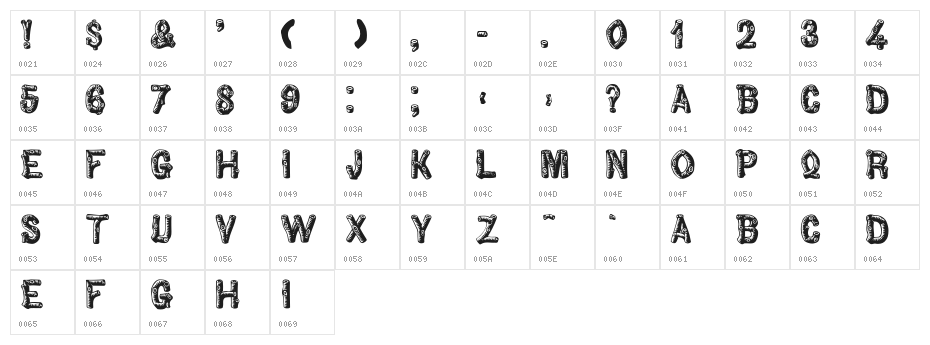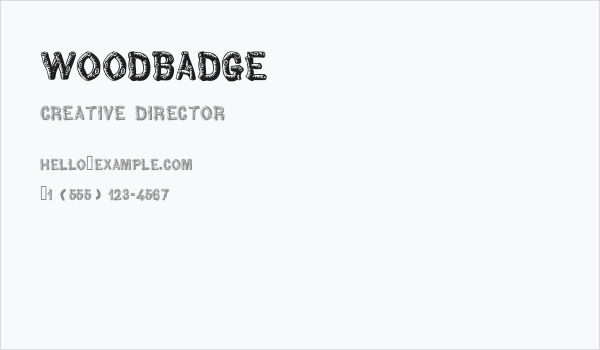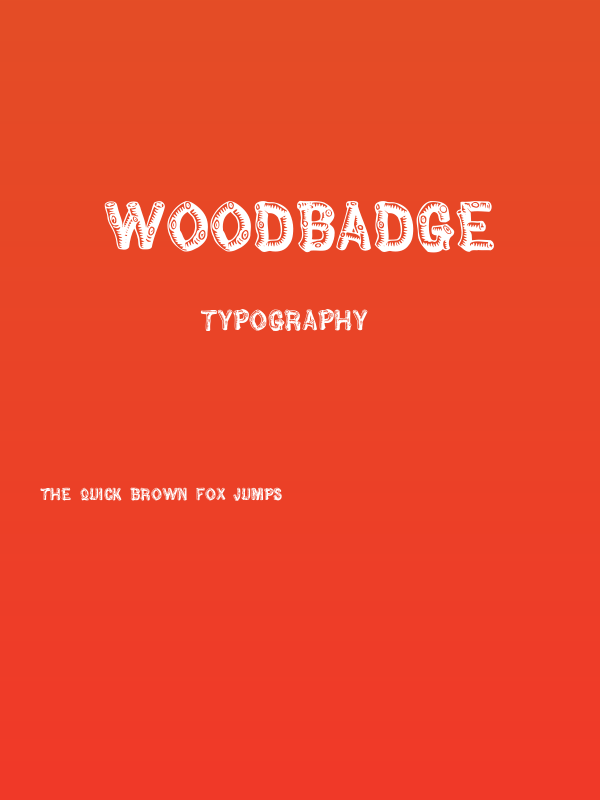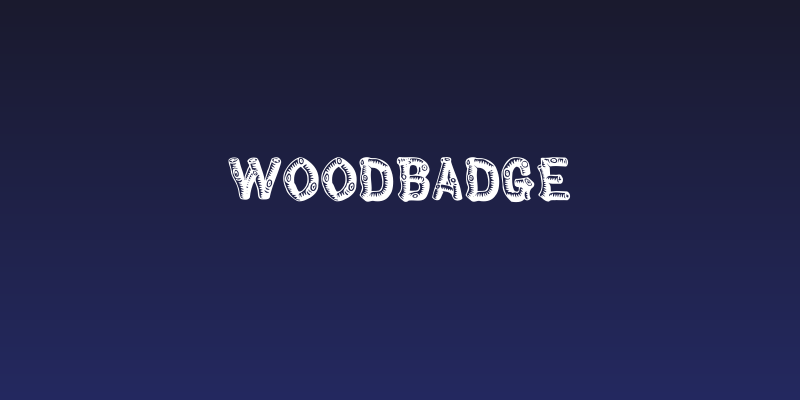
Woodbadge Font
Woodbadge Description
This font features a playful and decorative style, characterized by its bold, hand-drawn appearance. Each letter is adorned with intricate patterns and textures, giving it a whimsical and artistic feel. The characters are slightly rounded, with varying line thicknesses that add depth and dimension. This font exudes a sense of fun and creativity, making it ideal for projects that require a unique and eye-catching design. The overall look is reminiscent of hand-carved wood, with a touch of vintage charm.